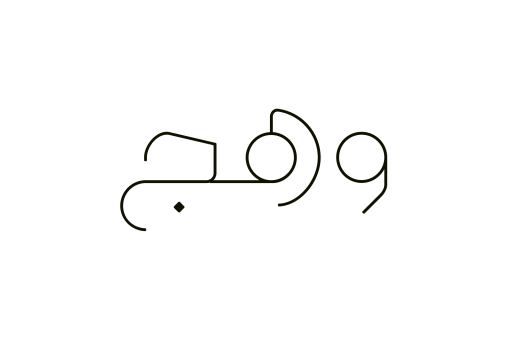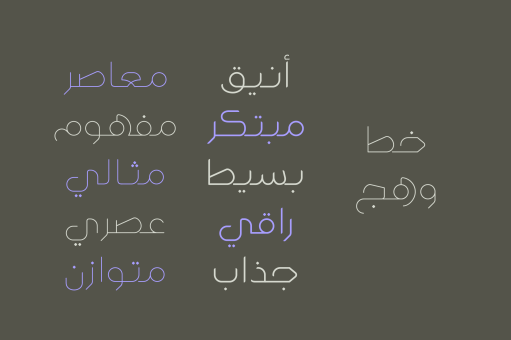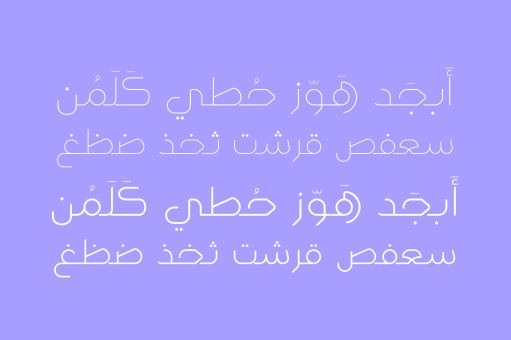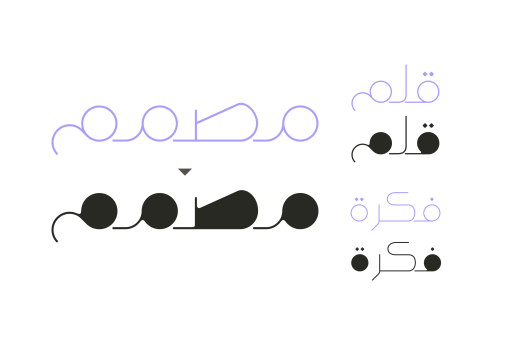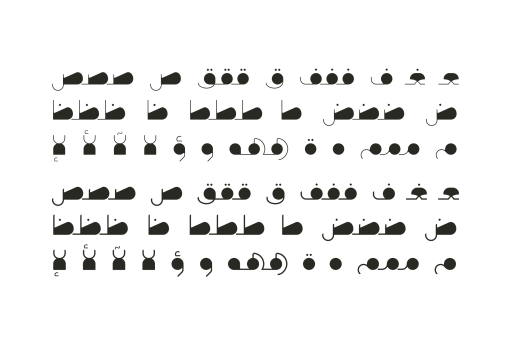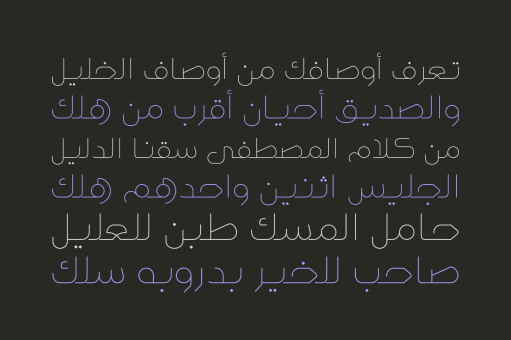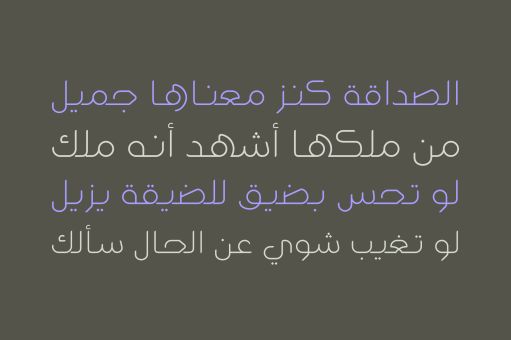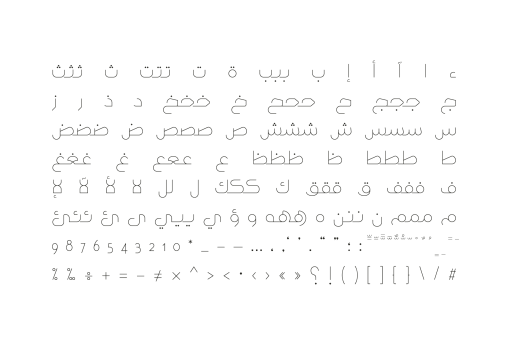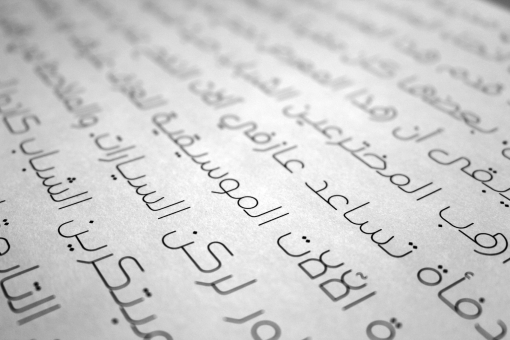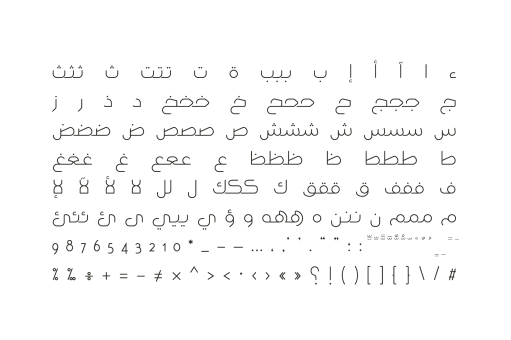
Wahaj
Wahaj is the Arabic word for Glare. This is an Arabic typeface that meets the demand for elegance combined with modernism. The font Wahaj is suitable for various design applications including branding, advertising and publishing.